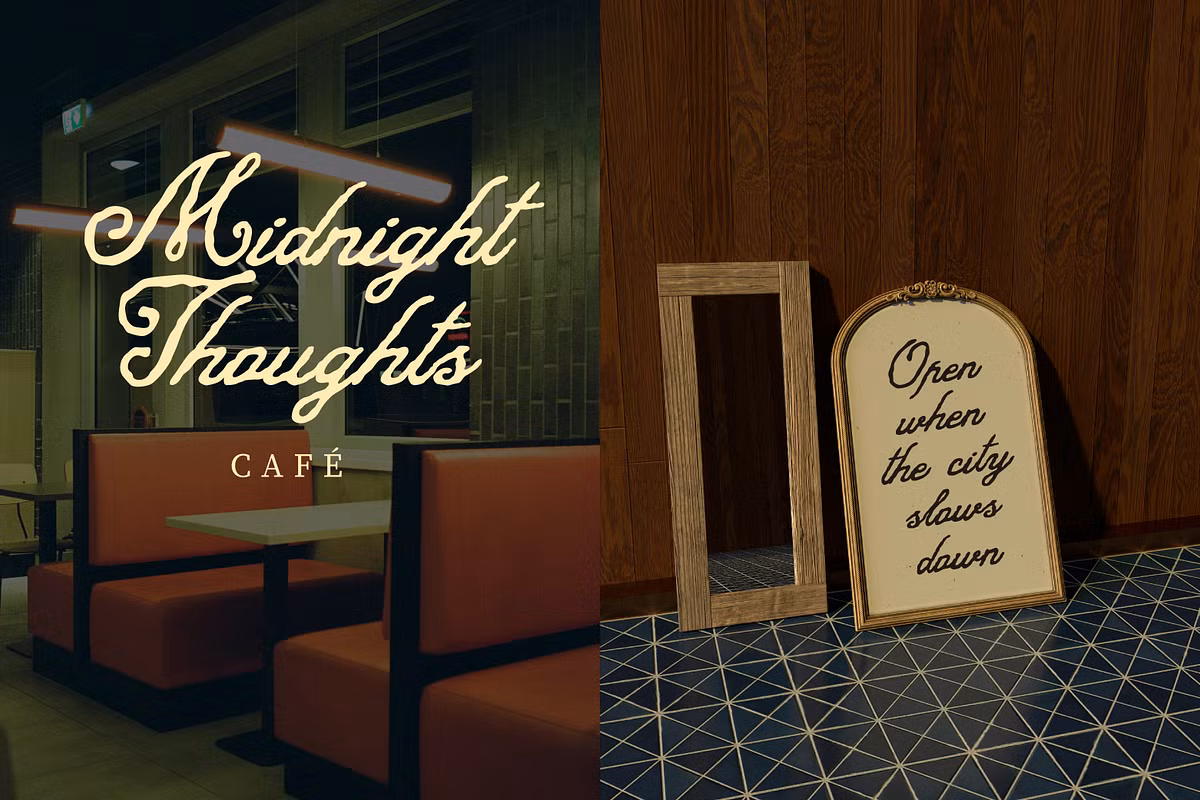
Quiet Attempt Love Handwritten Font: Soft Script for Intimate Designs
Quiet Attempt Love Handwritten Font
Quiet Attempt Love Handwritten Font: Soft Script for Intimate Designs
Quiet Attempt is a font that uses the gentle strokes to let you show personal expression. Quiet Attempt feels intimate and warm. Quiet Attempt works well for projects. If you want to write love notes, make café signs, or design wedding stationery, Quiet Attempt offers the balance of romance and vulnerability. Quiet Attempt connects with the audience.
Example of Quiet Attempt font in use
Quiet Attempt font showcased in design projects.
Quiet Attempt has strokes that shake and ink that flows softly. Quiet Attempt shows the flaws that happen when people write by hand. Quiet Attempt uses the letter shapes that look like a hand made them. Each letter has parts that give Quiet Attempt a human look. Quiet Attempt works for anyone who wants a warm look in a design.
Characteristics of Quiet Attempt
• Soft Handwritten Script: The font copies the flow of handwriting. The font adds a touch that makes digital design feel more human.
• Emotional Tone: Quiet Attempt holds the emotions. I find Quiet Attempt works well for personal projects.
• Versatile Use: Versatile Use works well in the phrases and in the headlines. Versatile Use makes sure the message stays clear and warm.
Character set of Quiet Attempt font
Character set showcasing the versatility of Quiet Attempt.
Character Sets and Language Support
Character Variety
The font contains a set of letters, punctuation marks, and special symbols. When I use the font, I have every tool I need to write interesting text. The character set in Quiet Attempt lets me be creative. Quiet Attempt does not sacrifice legibility.
Quiet Attempt font used in various applications
Quiet Attempt in various design applications.
Use Cases
Quiet Attempt is very flexible, so Quiet Attempt fits the applications. When I need the look, I reach for Quiet Attempt. I list some use cases where Quiet Attempt works well:
• Branding: I think Quiet Attempt fits personal branding. Quiet Attempt helps a brand tell the story with the inviting look.
• Café Signage: In my experience, the soft script works for café menus and signage. The soft script creates an atmosphere. The soft script makes customers stay longer.
• Layouts: Use Quiet Attempt in the magazine articles. Quiet Attempt adds a touch that engages the readers.
• Wedding Stationery: The font adds elegance and sentimentality to invitations. The font also works on thank-you cards. The font can be used on any wedding-related project. I find the font fits wedding stationery because the font feels personal and clear.
• Social Media Visuals: Use Quiet Attempt to improve your media graphics. I use Quiet Attempt to make posts that touch the feelings of the audience. Quiet Attempt helps you create graphics that feel real and connect with the audience.
• Quotes: I use the font for quotes or romantic quotes. The quotes feel more relatable and heartfelt.
I find that pairing the Quiet Attempt font with typefaces that add to its look without overwhelming it works well. Here are some pairing suggestions:
• Serif Fonts: Pair Quiet Attempt with a serif font like Times New Roman or Georgia. Serif Fonts give the contrast between traditional styles.
• Sans Serif Fonts: I use a sans serif font such as Helvetica or Arial to balance the curves of Quiet Attempt. The Sans Serif Fonts make headlines stand out. The Sans Serif Fonts keep text blocks easy to read.
• Other Handwritten Fonts: If you want a matching look, try pairing Quiet Attempt with other handwritten or script fonts. The other handwritten or script fonts share the look, such as Fragile Ego or Berry Drips.